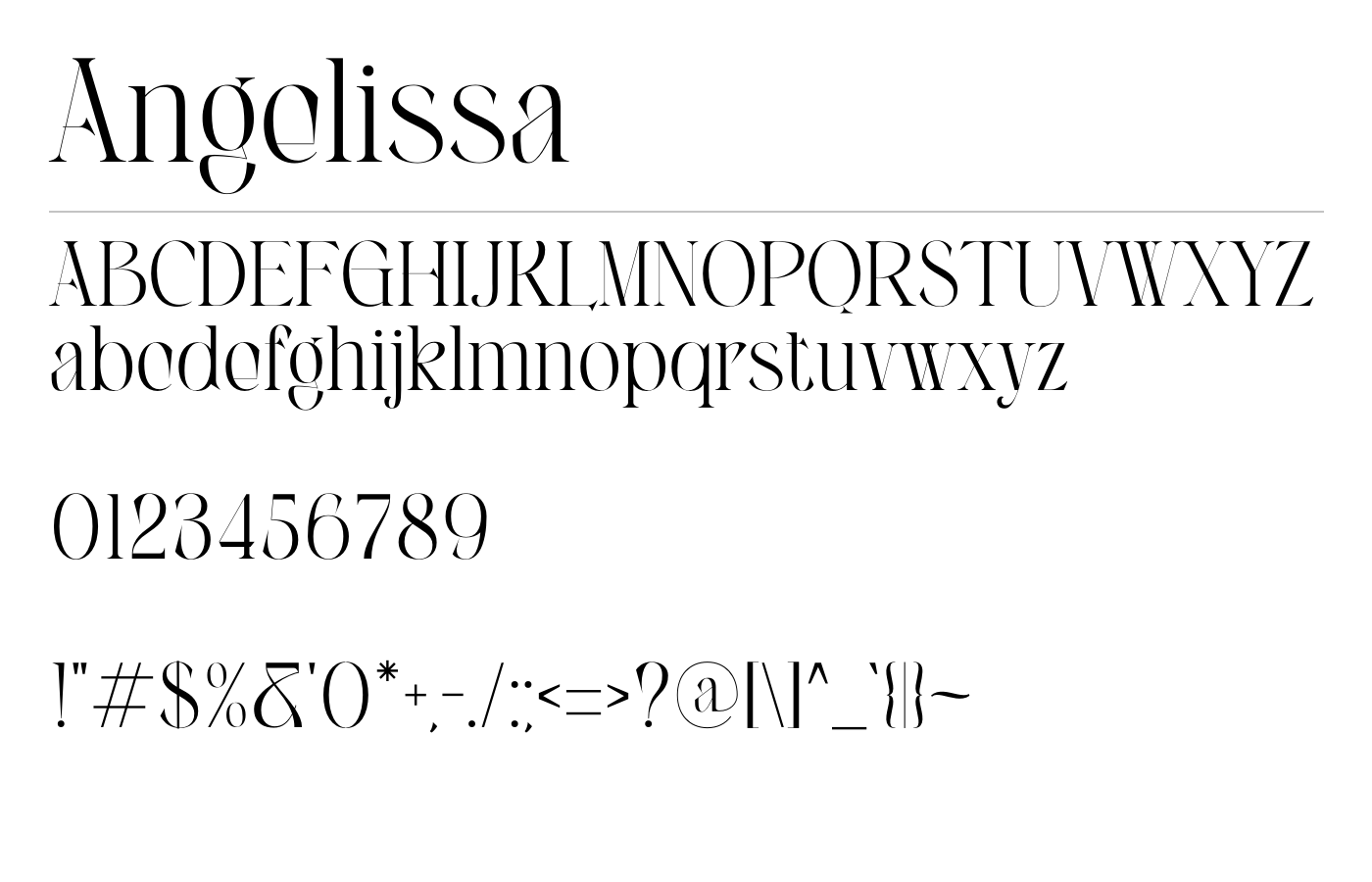
Angelissa is a stylish serif font with a high-contrast, elegant design that combines fine, sharp strokes with delicate curves, giving it a refined, modern appeal. Its tall x-height and unique letterforms, such as the distinctive lowercase 'g' and ornate ampersand, make it perfect for luxury branding, editorial headlines, and sophisticated packaging where a touch of grace and personality is desired. This font’s slender proportions and artistic flair lend a chic and contemporary feel ideal for fashion and upscale visual identities.
Angelissa Font
About Angelissa Font